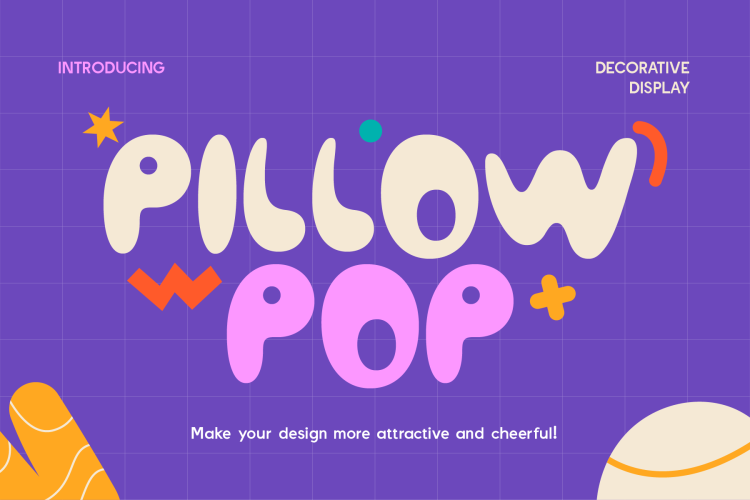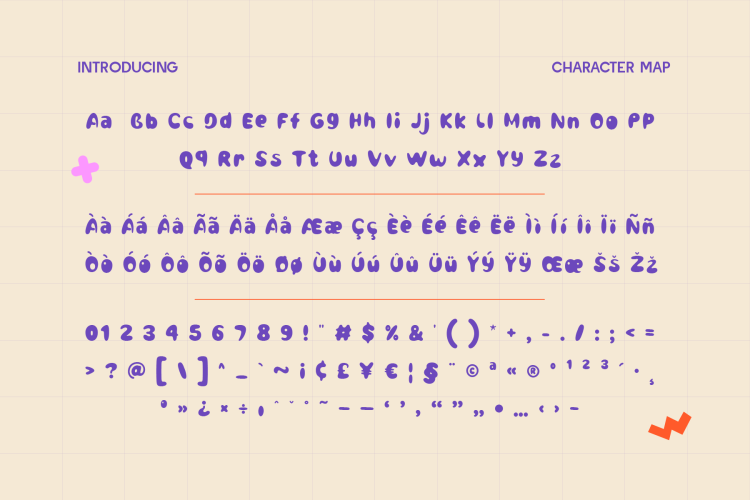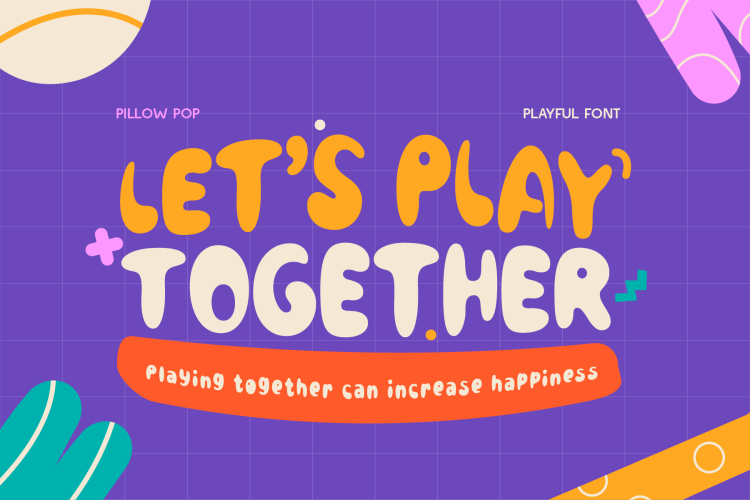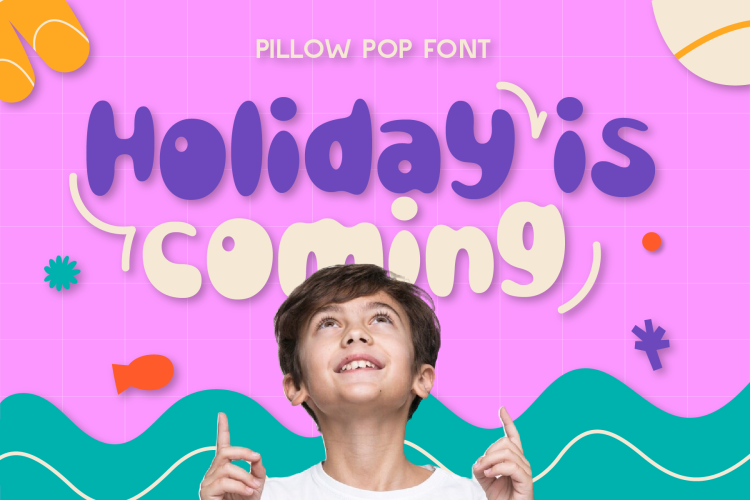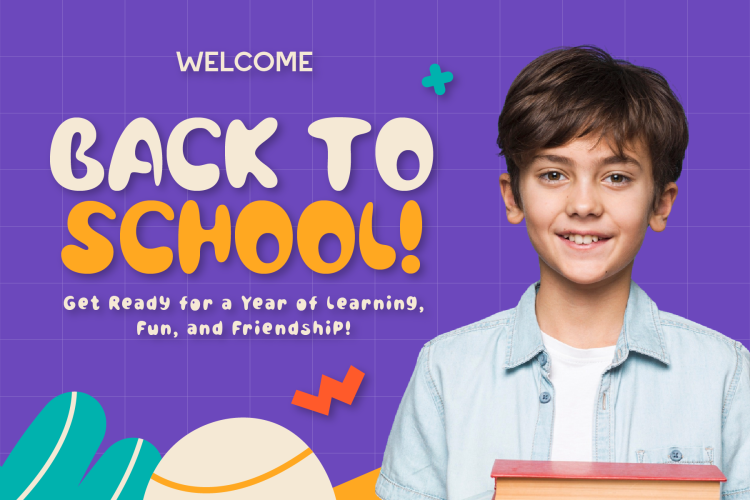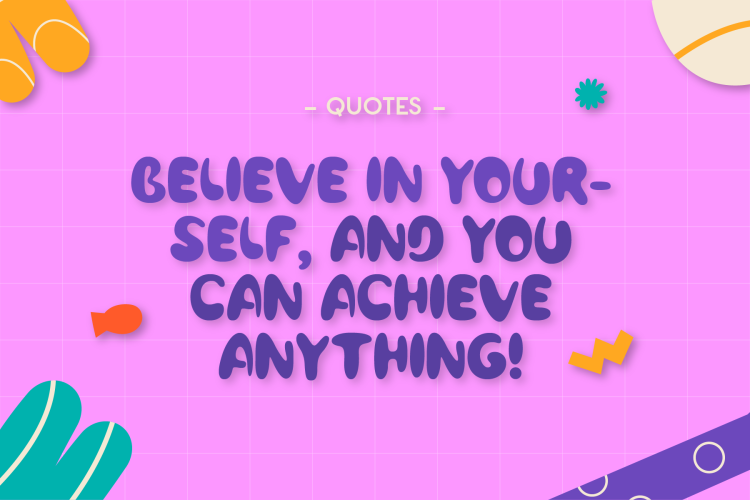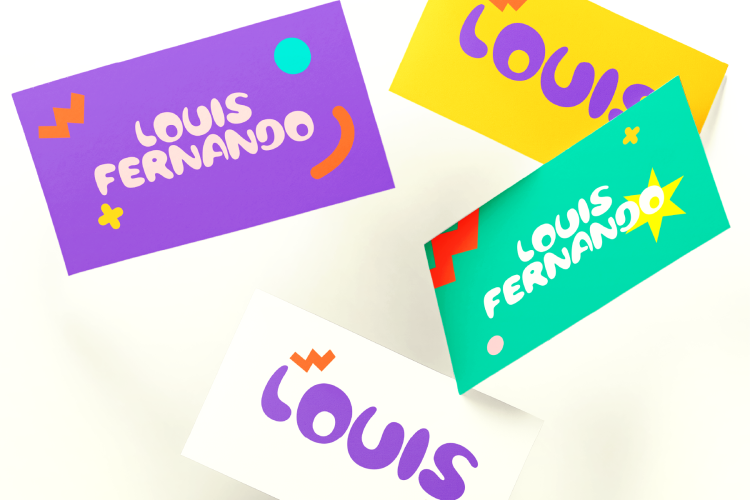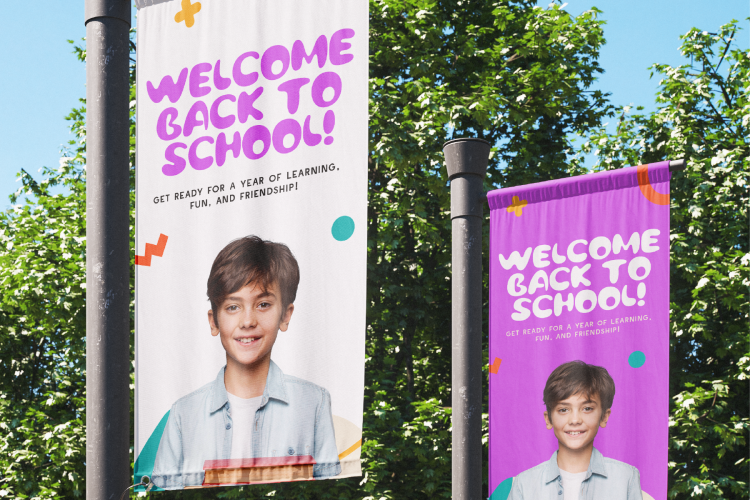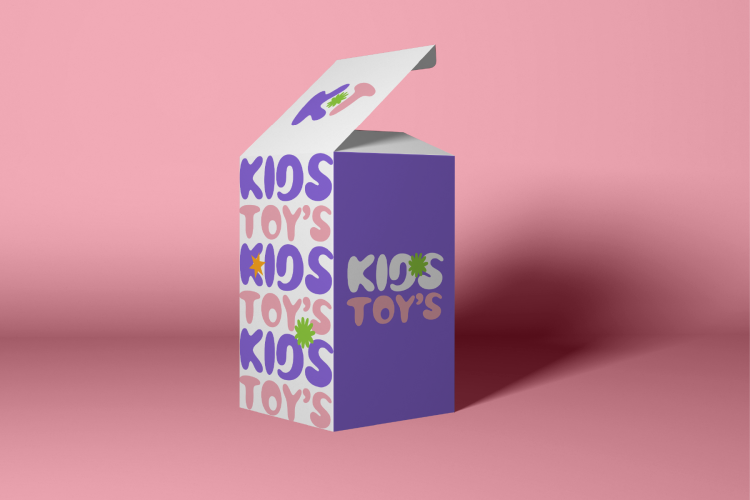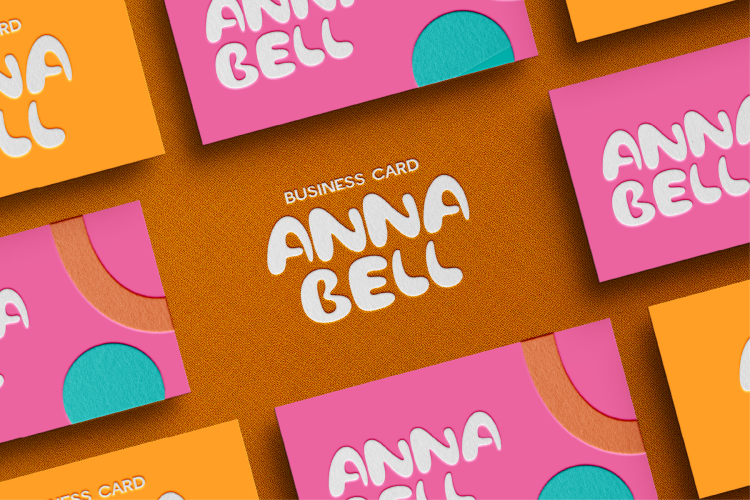
Pillowpop is a playful decorative display font that features a bubbly, free-flowing style. Its soft, rounded shapes give it a light-hearted and joyful feel, perfect for designs that need a fun, cheerful, and energetic touch. Whether you’re working on kids’ projects, branding, or party invitations, Pillowpop adds a vibrant and happy personality to any design. Its unique shapes make it especially suited for projects that aim to capture a sense of whimsy and creativity.
- Including Alternate Glyphs